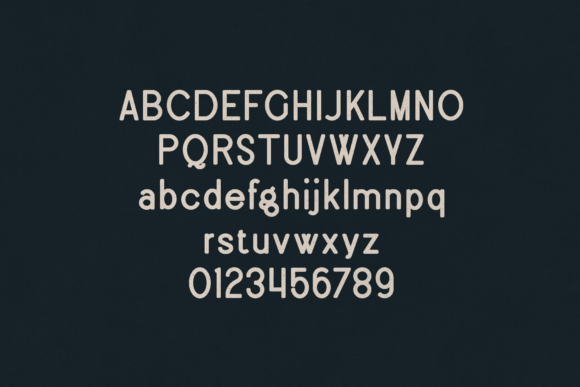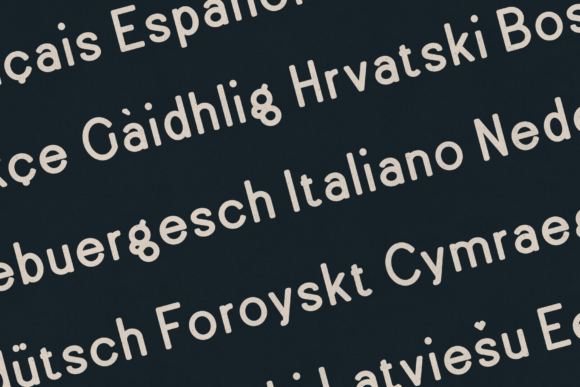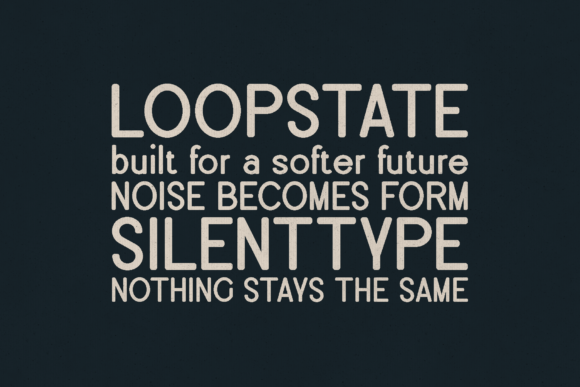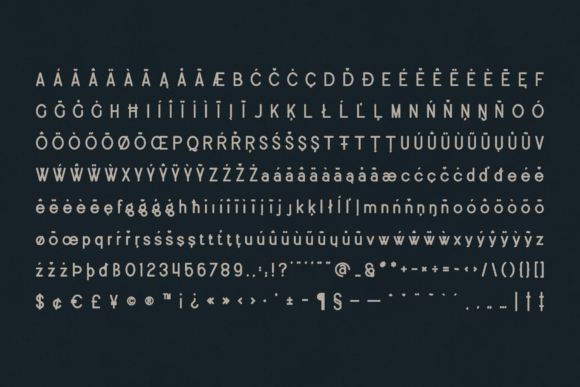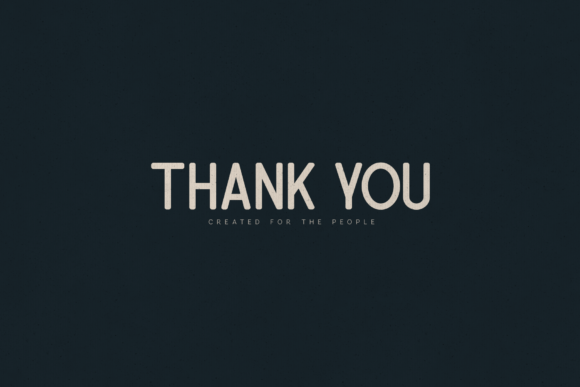
Introducing Enchanted Love Font: The Perfect Choice for Emotional and Intimate Designs
In the world of typography, fonts play a crucial role in conveying emotions and tone. For designers and crafters looking to add a touch of warmth, softness, and emotional clarity to their projects, the Enchanted Love font is an excellent choice. This modern, rounded sans serif font is crafted with softness, warmth, and human expression in mind, making it perfect for lifestyle branding, romance-driven visuals, wellness projects, editorial layouts, packaging, quotes, and modern digital design.
The Characteristics of Enchanted Love Font
Enchanted Love font boasts gentle curves, balanced proportions, and a subtle organic texture that creates a calm and emotional tone. This font’s friendly appearance makes it highly readable while maintaining a refined, contemporary character. The result is a typography that feels intimate, modern, and inviting, ideal for projects that communicate feeling rather than force.
Ideal Applications for Enchanted Love Font
Enchanted Love font is versatile and can be used in various design projects, including:
- Lifestyle & Wellness Branding: Create a soothing and calming atmosphere for your brand with Enchanted Love font. Its gentle curves and soft texture evoke feelings of serenity and peacefulness, making it perfect for wellness centers, yoga studios, and health food stores.
- Romantic & Emotional Design: Add a touch of romance and whimsy to your designs with Enchanted Love font. Its emotional tone and intimate feel make it ideal for wedding invitations, love letters, and romantic getaways.
- Editorial Layouts: Use Enchanted Love font to create visually appealing editorial layouts that convey a sense of calmness and serenity. Its readability and refined character make it perfect for magazines, blogs, and newspapers.
- Packaging: Stand out in the market with Enchanted Love font on your packaging. Its friendly and approachable tone can help create an emotional connection with your customers.
- Quotes and Modern Digital Design: Add a touch of elegance and sophistication to your quotes and digital designs with Enchanted Love font. Its modern and inviting tone makes it perfect for social media graphics, website headers, and digital ads.
Features of Enchanted Love Font
Enchanted Love font comes with a range of features that make it a valuable addition to any designer’s toolkit:
- Uppercase and Lowercase Letters: The font includes both uppercase and lowercase letters, allowing you to create a wide range of designs.
- Numerals, Punctuation, and Extensive Multilingual Support: Enchanted Love font includes numerals, punctuation, and extensive multilingual support, making it perfect for international designs.
Why Choose Enchanted Love Font?
Enchanted Love font is perfect for designers looking to add warmth, softness, and emotional clarity to their typography. Its unique characteristics, versatility, and range of features make it an excellent choice for various design projects. With Enchanted Love font, you can:
- Create a calm and emotional tone that resonates with your audience.
- Add a touch of romance and whimsy to your designs.
- Convey a sense of intimacy and modernity.
- Enhance the readability and refined character of your typography.
In conclusion, Enchanted Love font is a valuable addition to any designer’s toolkit. Its unique characteristics, versatility, and range of features make it perfect for lifestyle branding, romance-driven visuals, wellness projects, editorial layouts, packaging, quotes, and modern digital design. ✦